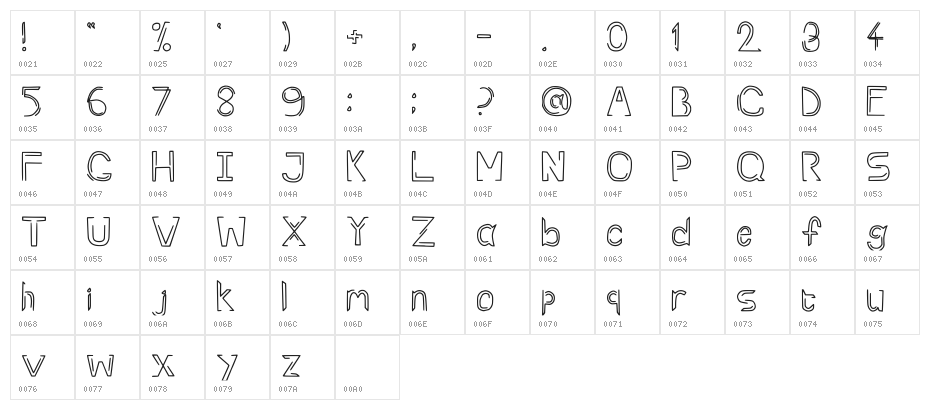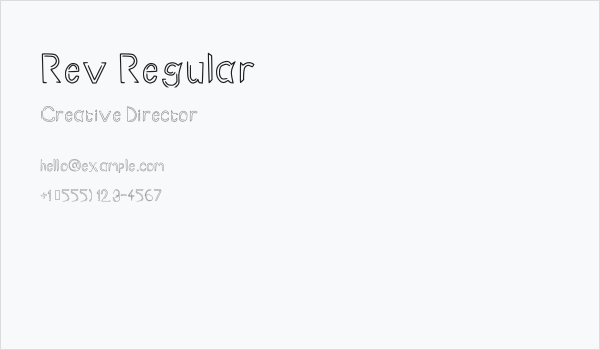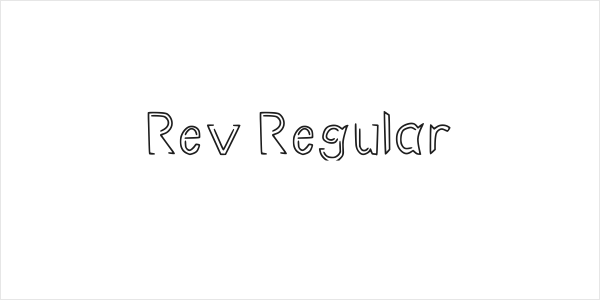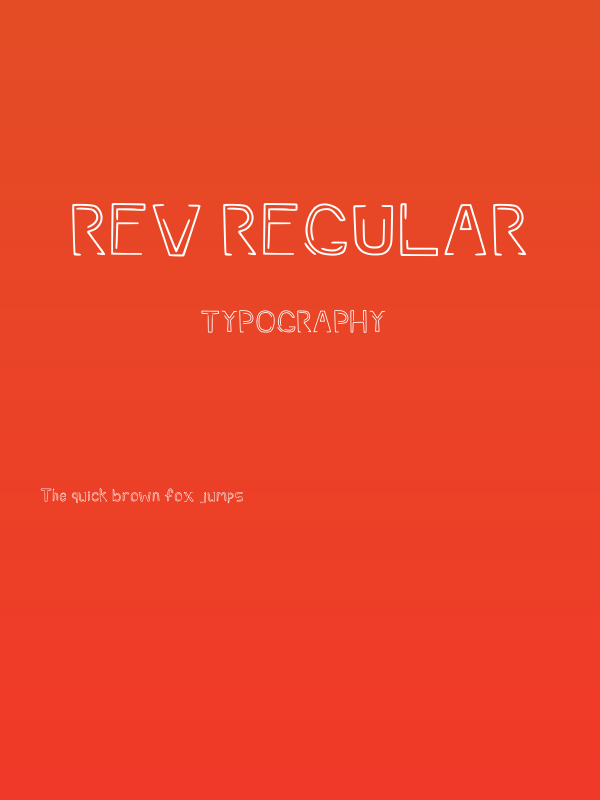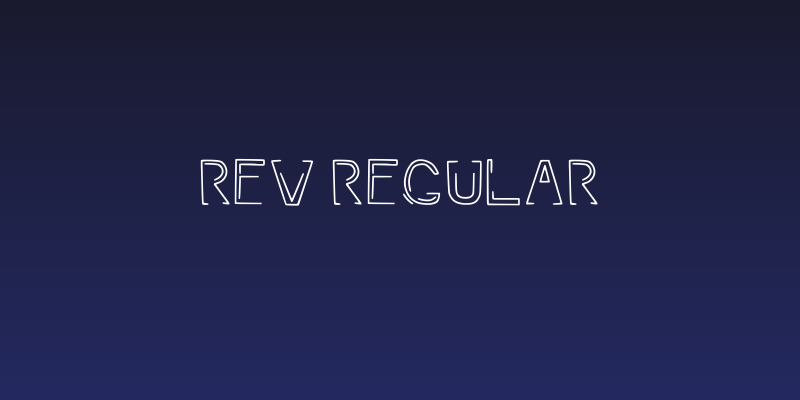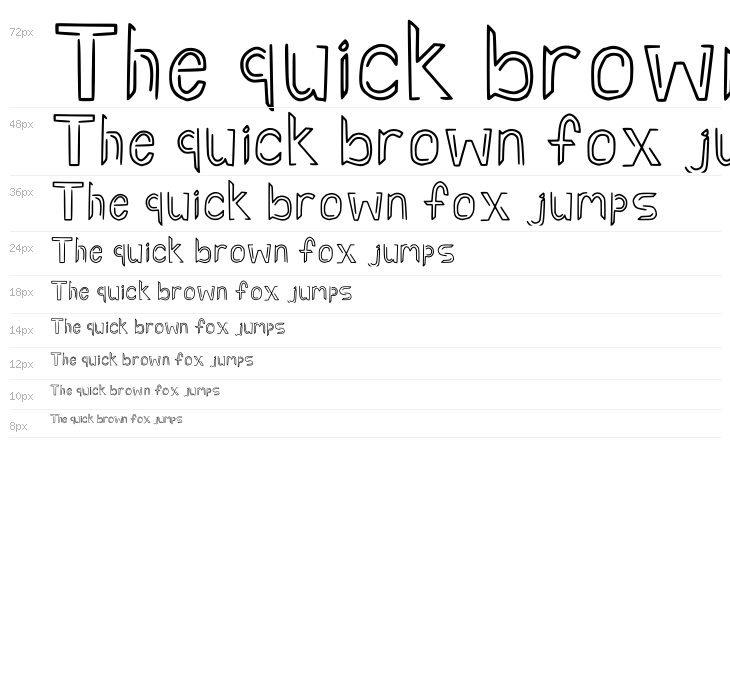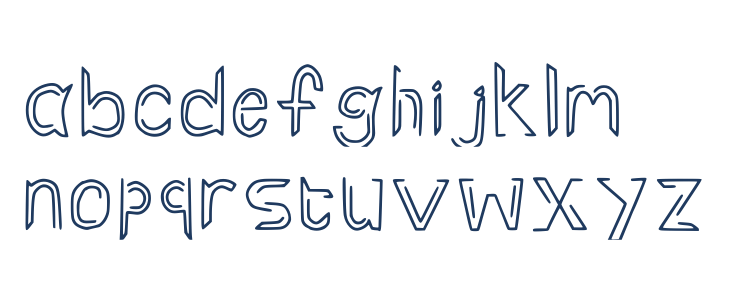
Rev Regular Font
Rev Regular Description
This font features a unique, hand-drawn style with an outline effect that gives it a playful and artistic appearance. The characters are designed with a double-line structure, creating a sense of depth and dimension. The uppercase and lowercase letters maintain a consistent style, with rounded edges and a slightly irregular form that adds to its charm. The numerals and special characters follow the same design principles, ensuring a cohesive look across all elements. This font's distinctive style makes it ideal for creative projects that require a touch of whimsy and individuality.
| Overall Style | Artistic, Playful |
| Proposed Projects | Ideal for children's books, creative posters, artistic branding, and playful invitations. |